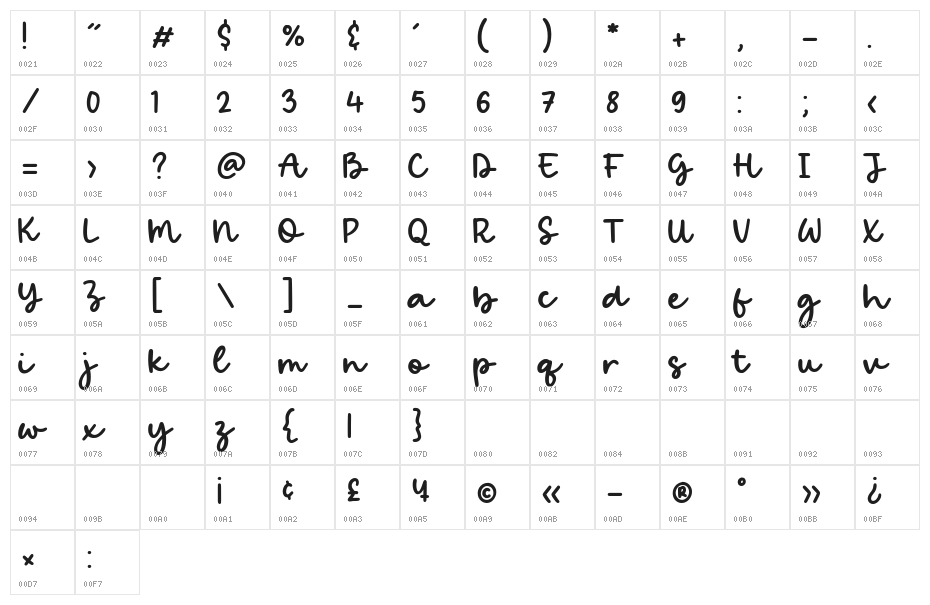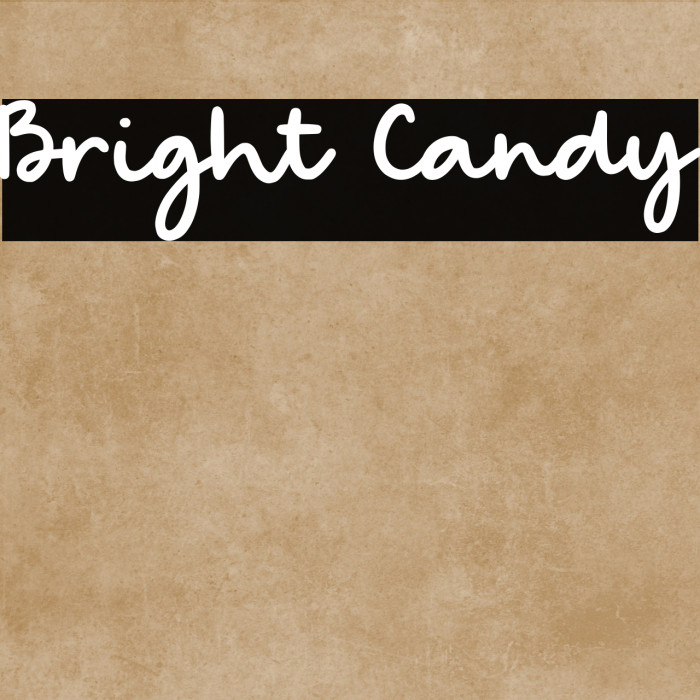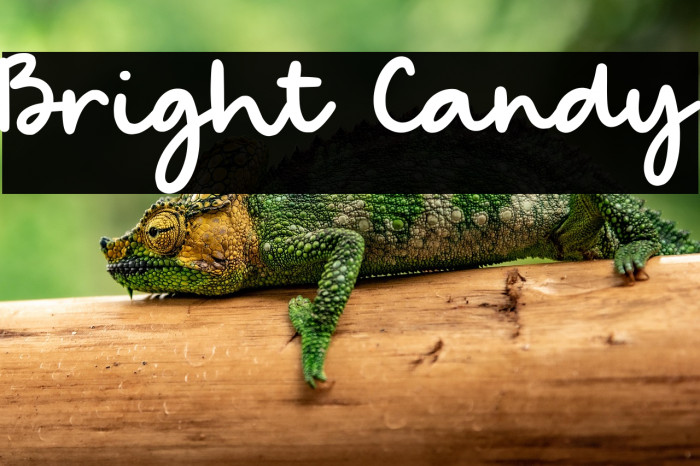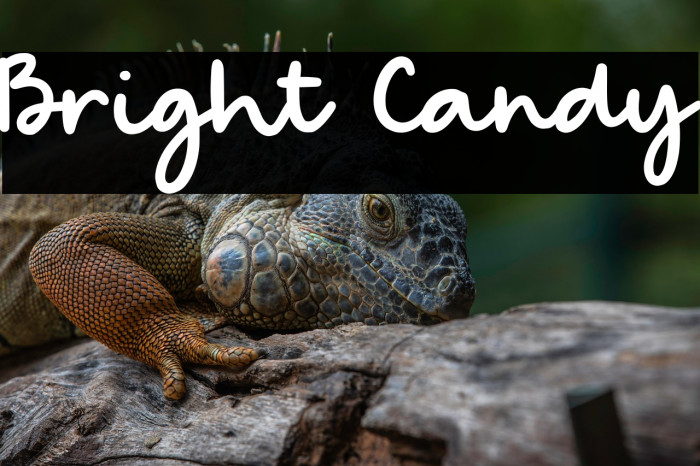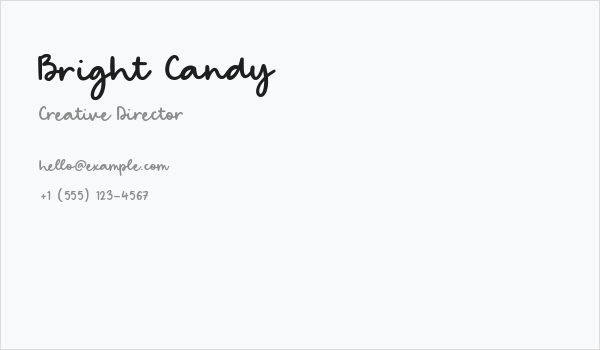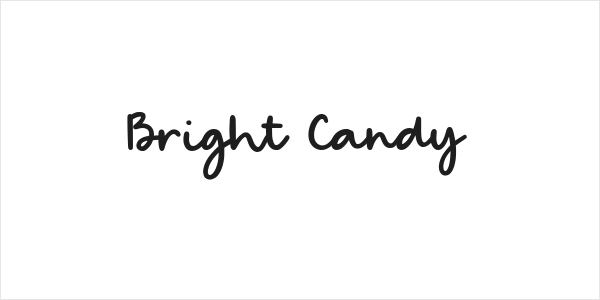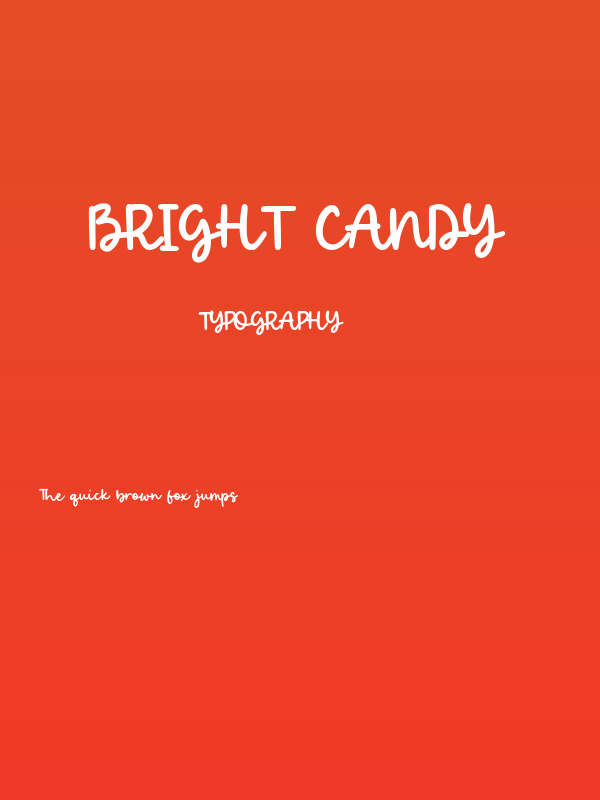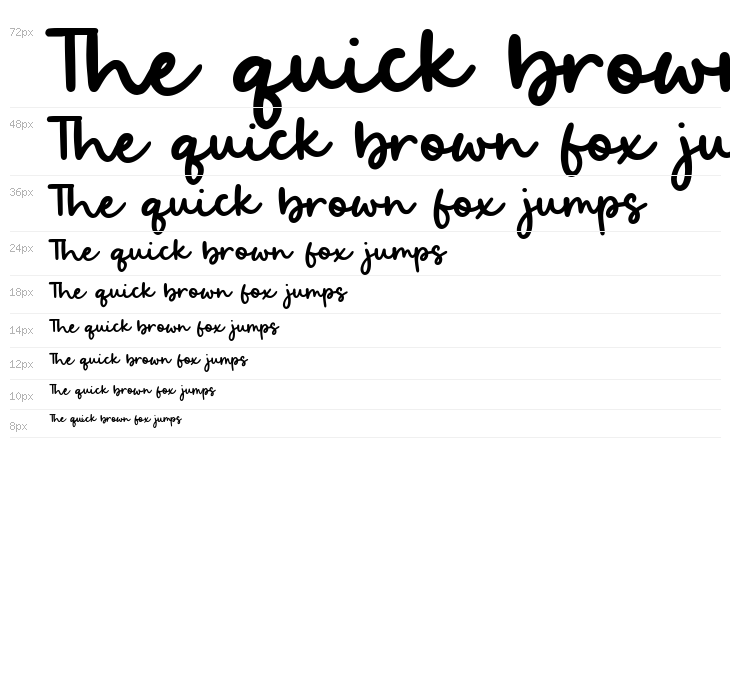
Bright Candy Font
Bright Candy Description
This playful and energetic font features a handwritten style with bold, rounded strokes that convey a sense of fun and creativity. The letters are connected in a fluid manner, giving it a cursive appearance while maintaining legibility. The uppercase and lowercase characters are well-balanced, with a consistent flow that enhances its casual yet stylish look. Numbers and special characters are included, matching the overall aesthetic with their smooth curves and dynamic forms. This font is perfect for projects that require a personal touch or a lively, informal vibe.
| Overall Style | Playful, Casual |
| Use Case | Headlines, Logos, Informal Text |
| Proposed Projects | Ideal for greeting cards, playful branding, children's books, and social media graphics. |